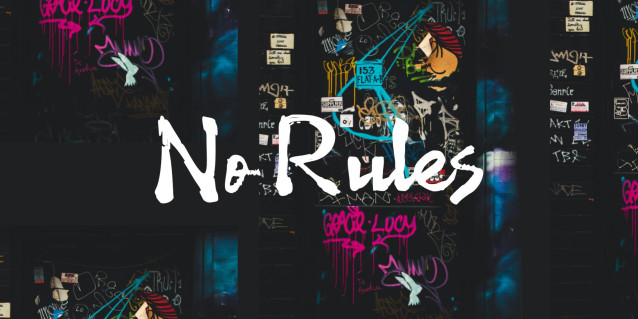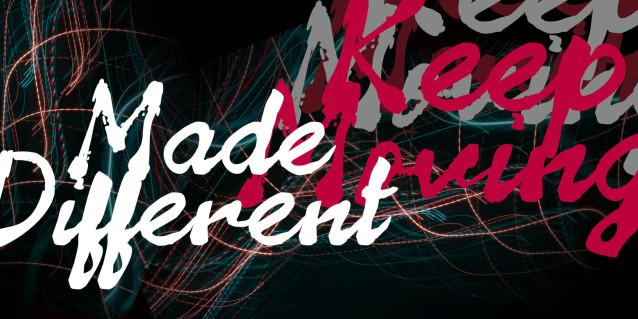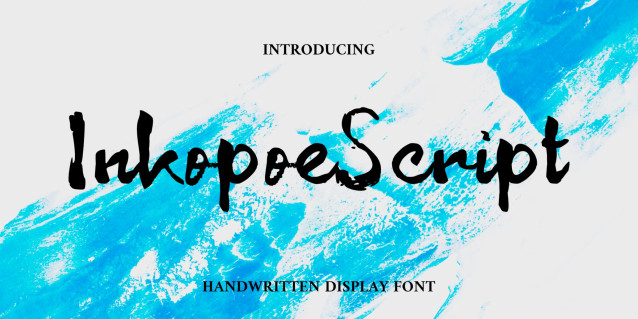
Inkopoe Script Handwritten Font
This font features a bold handwritten brush style with expressive strokes and natural ink textures, creating an authentic and artistic look. Its rough yet balanced character gives a strong urban, indie, and modern aesthetic that feels energetic, creative, and full of personality. Designed to stand out, this typeface works perfectly for streetwear branding, music posters, album covers, social media content, creative campaigns, and lifestyle designs. The dynamic brush details bring a raw handmade feel while still maintaining good readability, making it ideal for eye-catching headlines and impactful visual compositions
Featuring fluid, expressive strokes and a natural hand-drawn feel, this font captures the authentic charm of traditional ink calligraphy. Its elegant curves and seamless connections make it an exceptional choice for a wide variety of creative projects, including wedding invitations, sophisticated packaging, greeting cards, quote layouts, social media graphics, and editorial designs. With a perfect balance of classic romance and modern fluid style, Inkopoe Script adds a deeply personal, premium, and artistic touch to any textual presentation